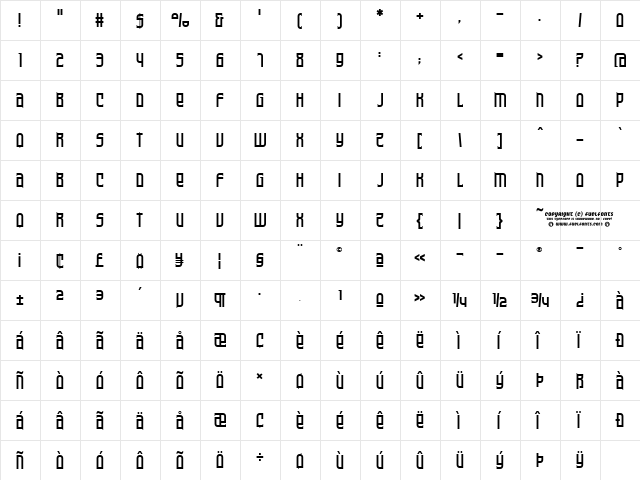
Armorica Regular
Design Context for Armorica Typeface
Armorica is a composed and adaptable typeface that performs quietly and consistently across a wide range of design contexts.
Pro Tip: Pair Armorica with a font of contrasting weight or personality to build a more expressive typographic hierarchy.